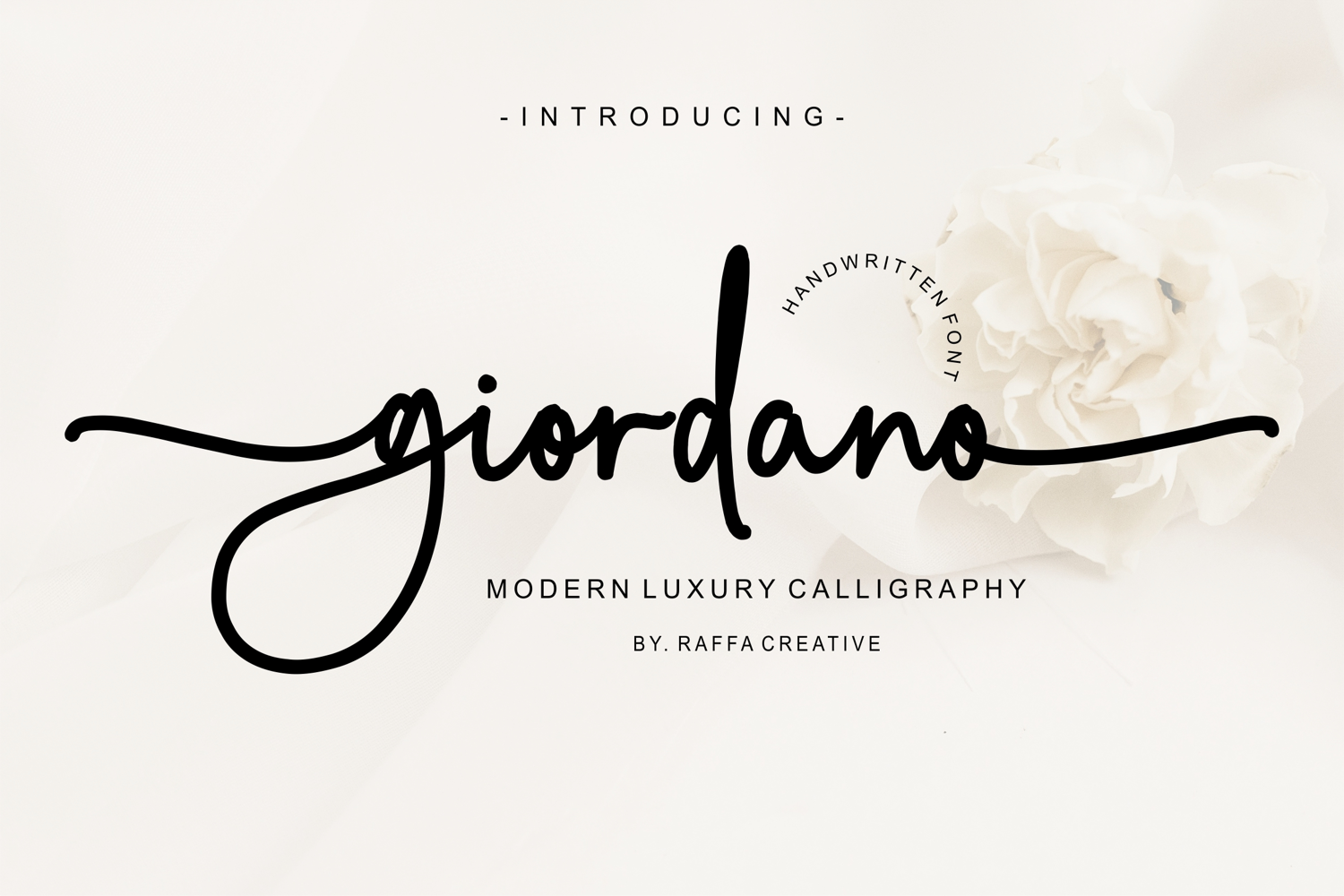
giordano
Giordano is a modern handwritten script typeface that combines elegance with a natural flow. Its smooth strokes and stylish curves are designed to capture the look of authentic handwriting.